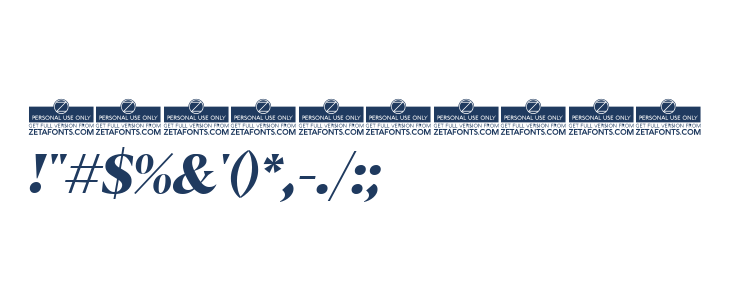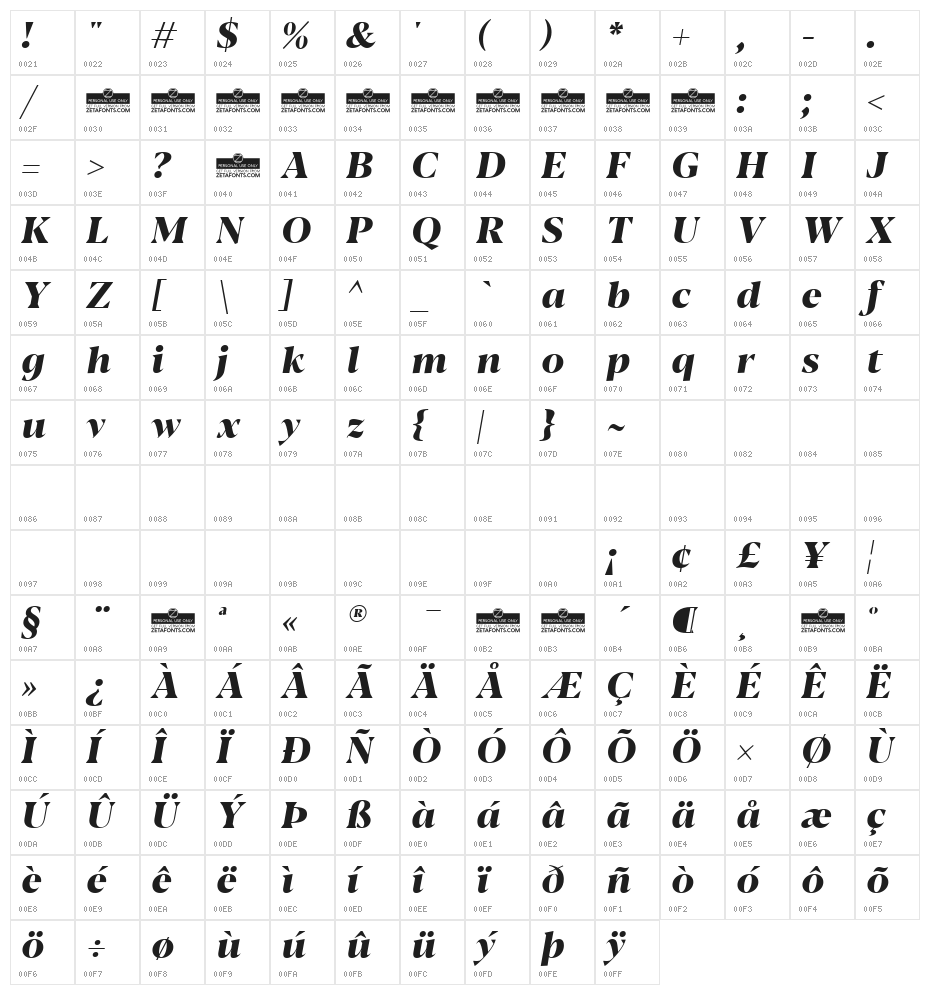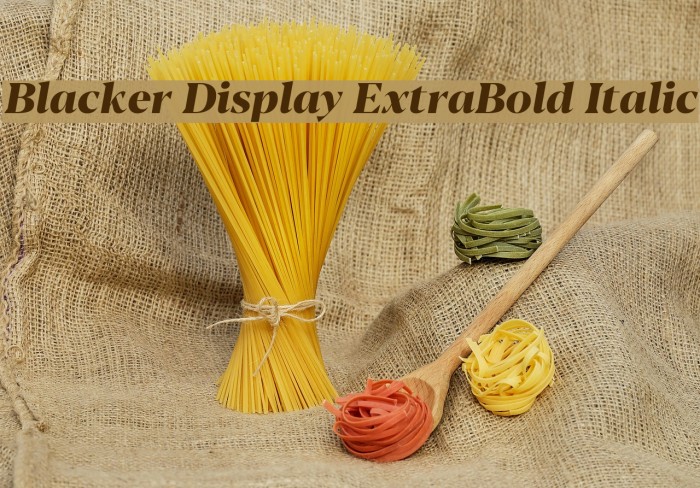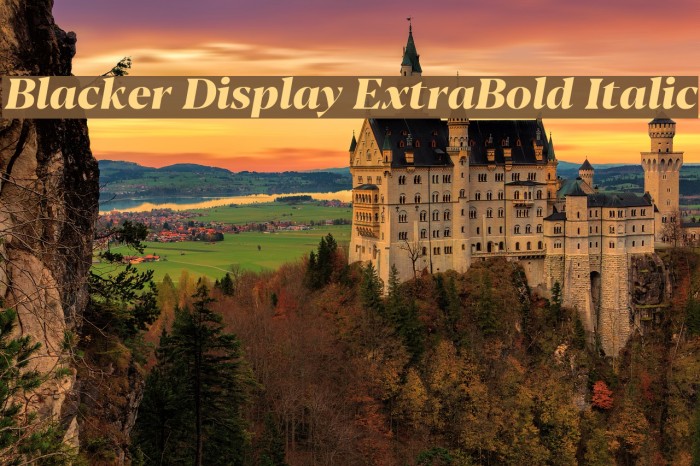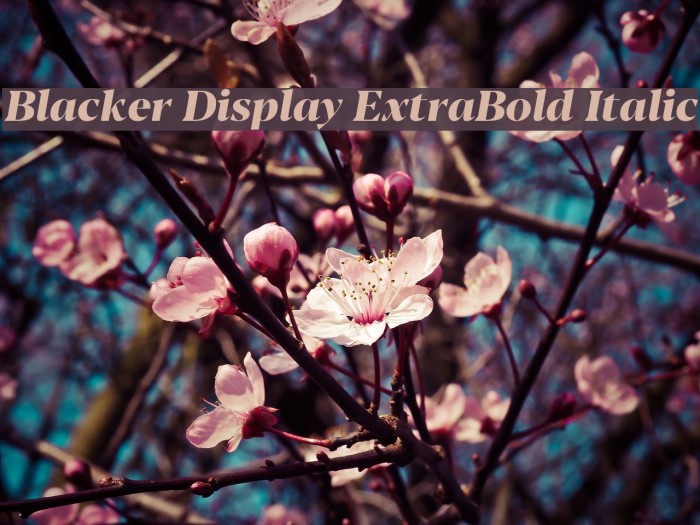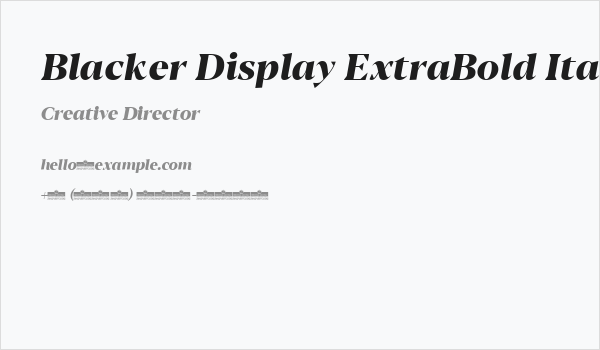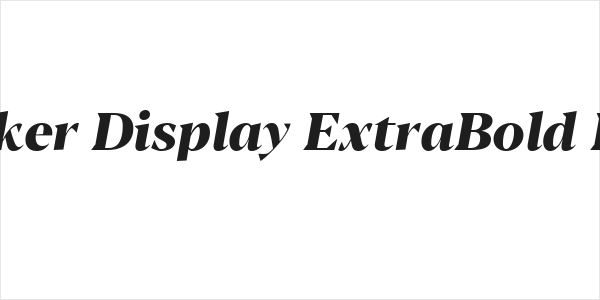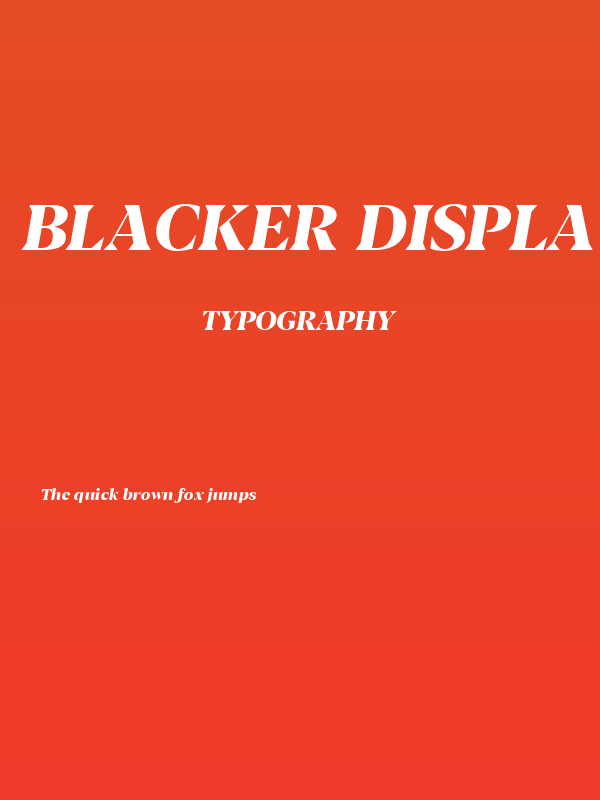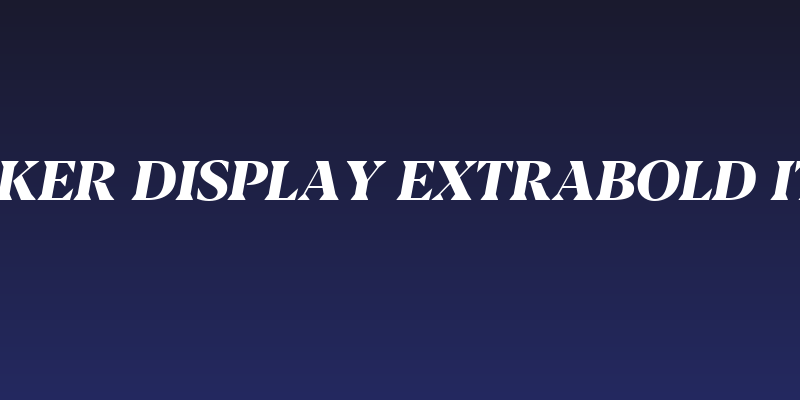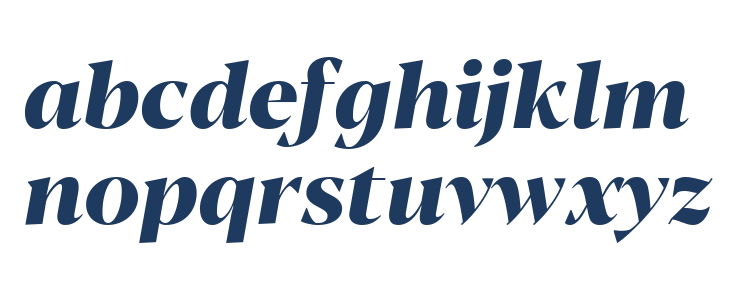
Blacker Display ExtraBold Italic Font
Blacker Display ExtraBold Italic Description
This font exhibits a bold and dynamic presence with its extra bold weight and italic style. The characters are sharply defined, featuring high contrast between thick and thin strokes, which adds to its dramatic flair. The serif design is prominent, giving it a classic yet modern appeal. The italic slant enhances the sense of movement and elegance, making it suitable for attention-grabbing headlines and impactful designs. The spacing between characters is tight, contributing to its compact and cohesive appearance. Overall, this font combines traditional serif elements with a contemporary twist, making it versatile for various creative applications.
| Proposed Projects | Ideal for magazine covers, branding, advertising campaigns, and editorial design. |